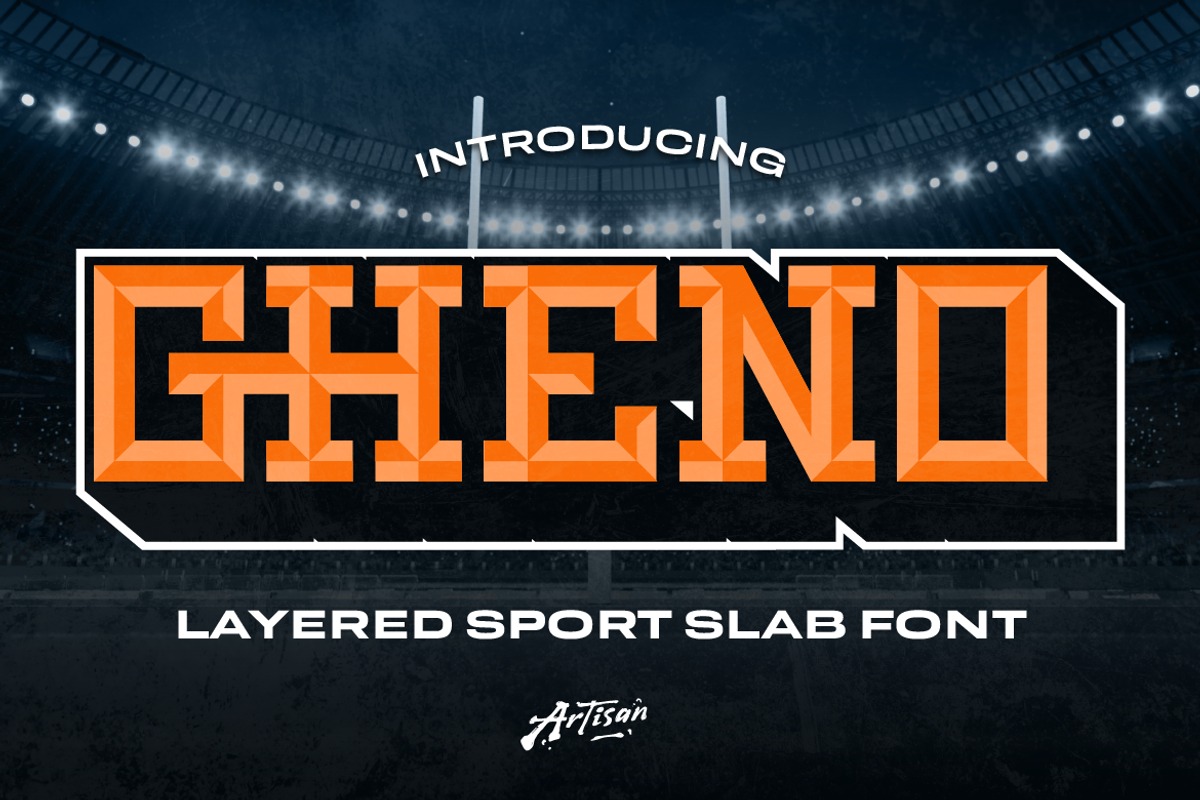
Gheno Font
Gheno Font is a professionally designed typeface that delivers clarity, structure, and consistent performance across various design applications. Gheno is a bold layered sport slab font built to bring power, impact, and game-day energy into your designs. Inspired by classic stadium typography and modern athletic branding, this font delivers strong block shapes with sharp slab details that instantly feel competitive and confident. Designed with a layered system, Gheno gives you creative flexibility through Regular, Bevel, and Extrude styles. Stack them together or use them separately to create depth, dimension, and eye-catching typography, perfect for bold headlines and statement graphics. With its wide proportions, solid structure, and strong edges, Gheno performs best in sports branding, jerseys, posters, match graphics, esports visuals, athletic logos, and social media content. Whether you’re designing for football, basketball, or any high-energy competition, this font keeps the visual tone loud, strong, and unapologetically sporty.